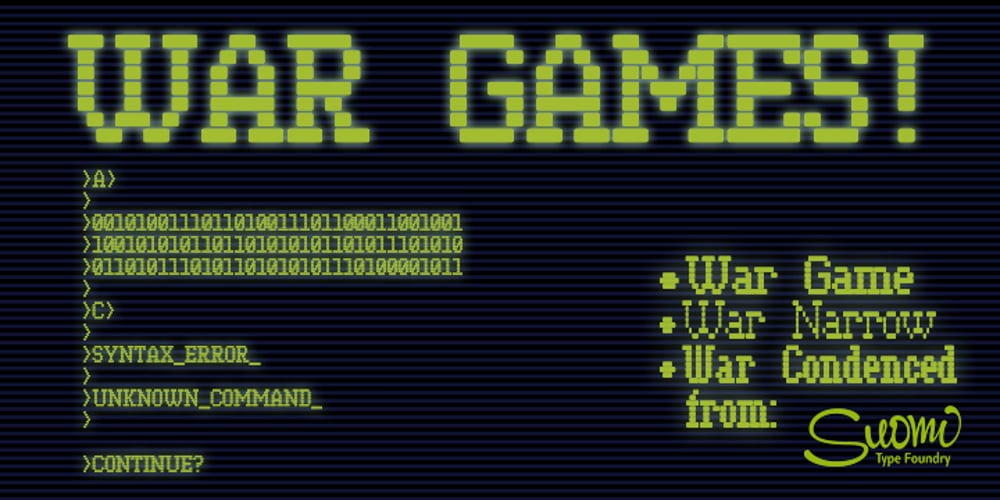
War Font Family was designed by Tomi Haaparanta and published by Suomi. War contains 3 styles and family package options. The matrix screen types from the movie War Games stuck in my mind, so I decided to make few versions.